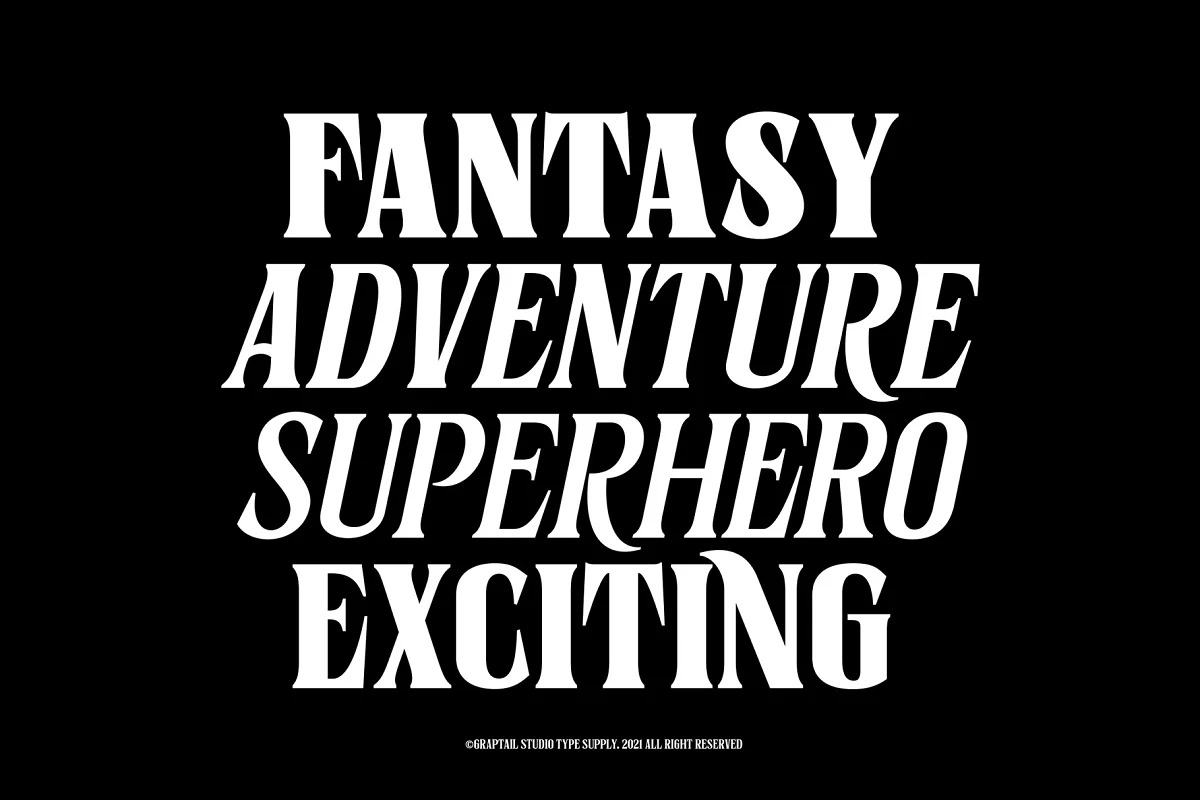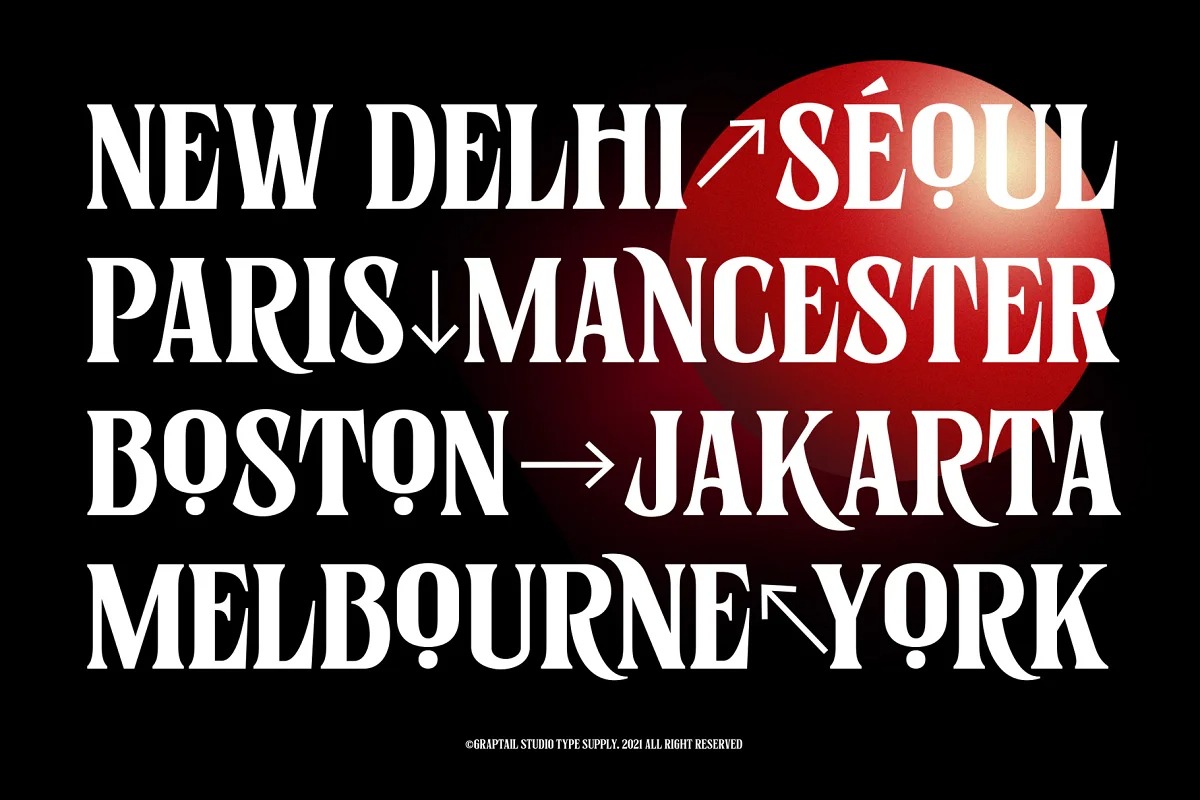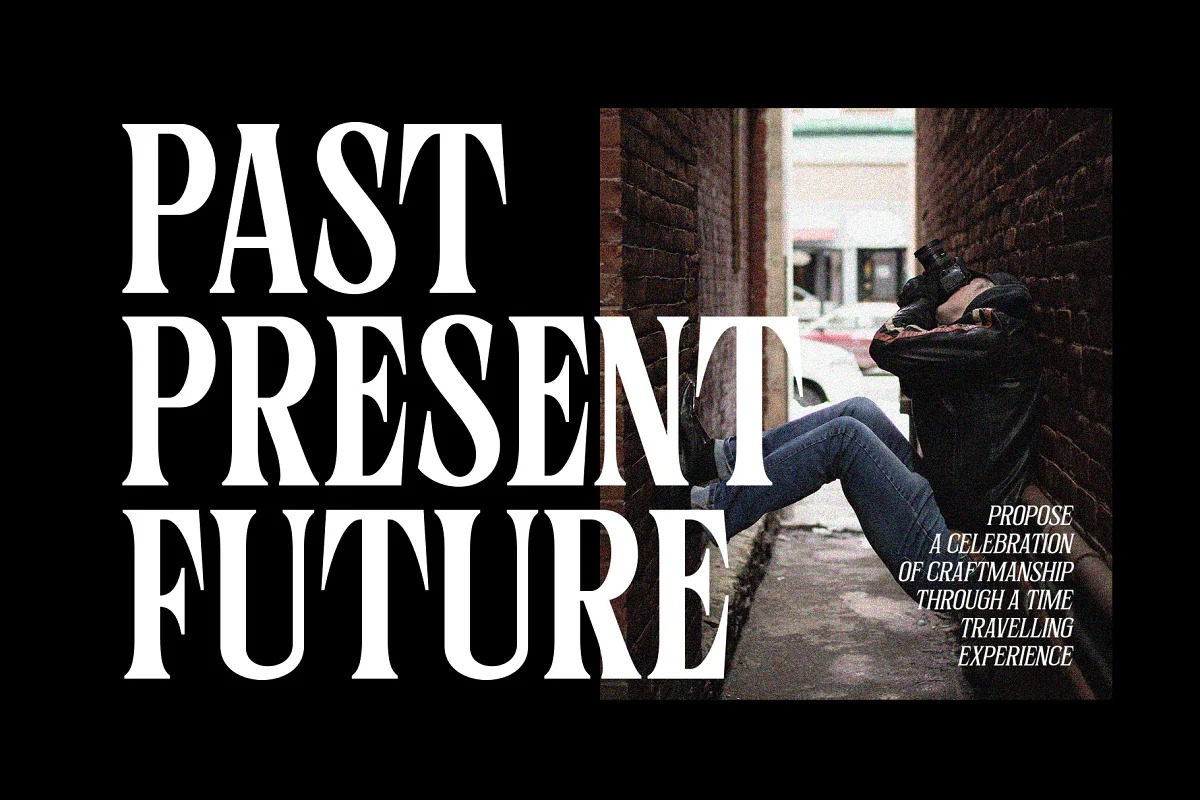
Sernes Serif Font
It’s a modern classic serif font created by Graptail with an individual approach in every single letter. Sernes was inspired by the letterforms in the film series “stranger things” with condensed letters.comes with 18 weights which includes display, alternate and italic.